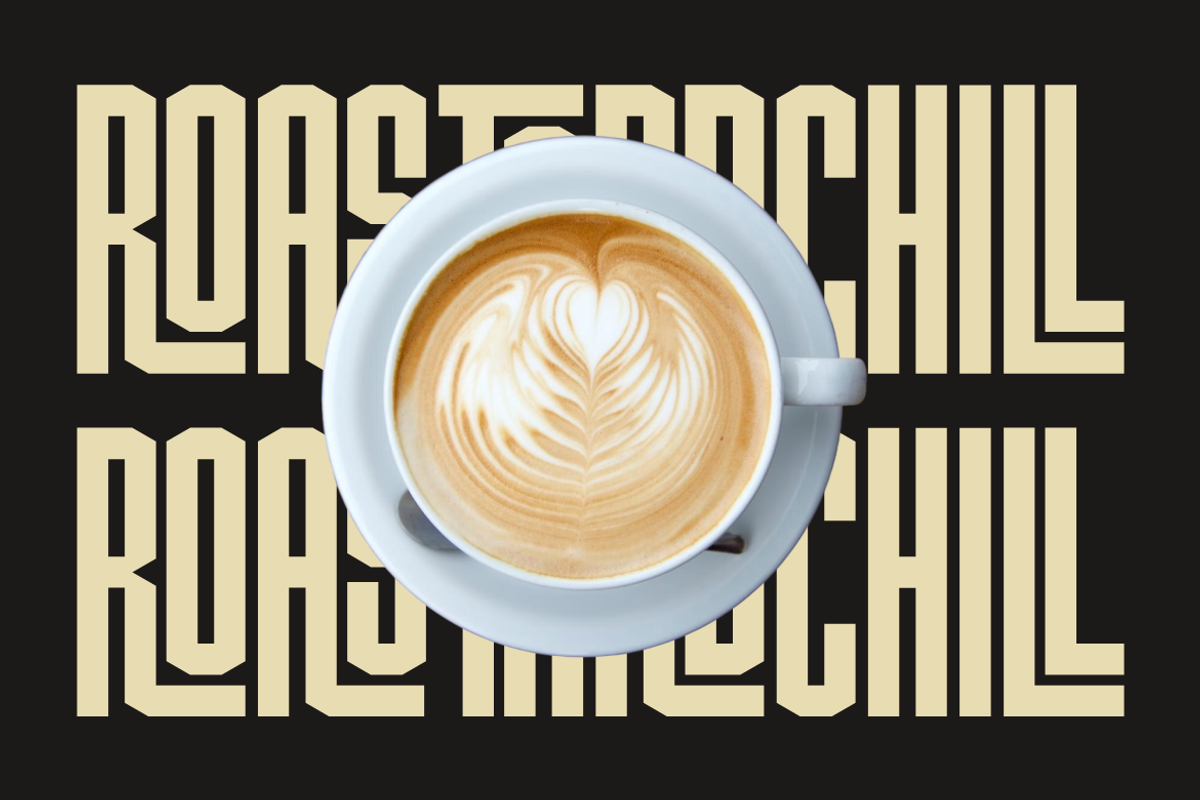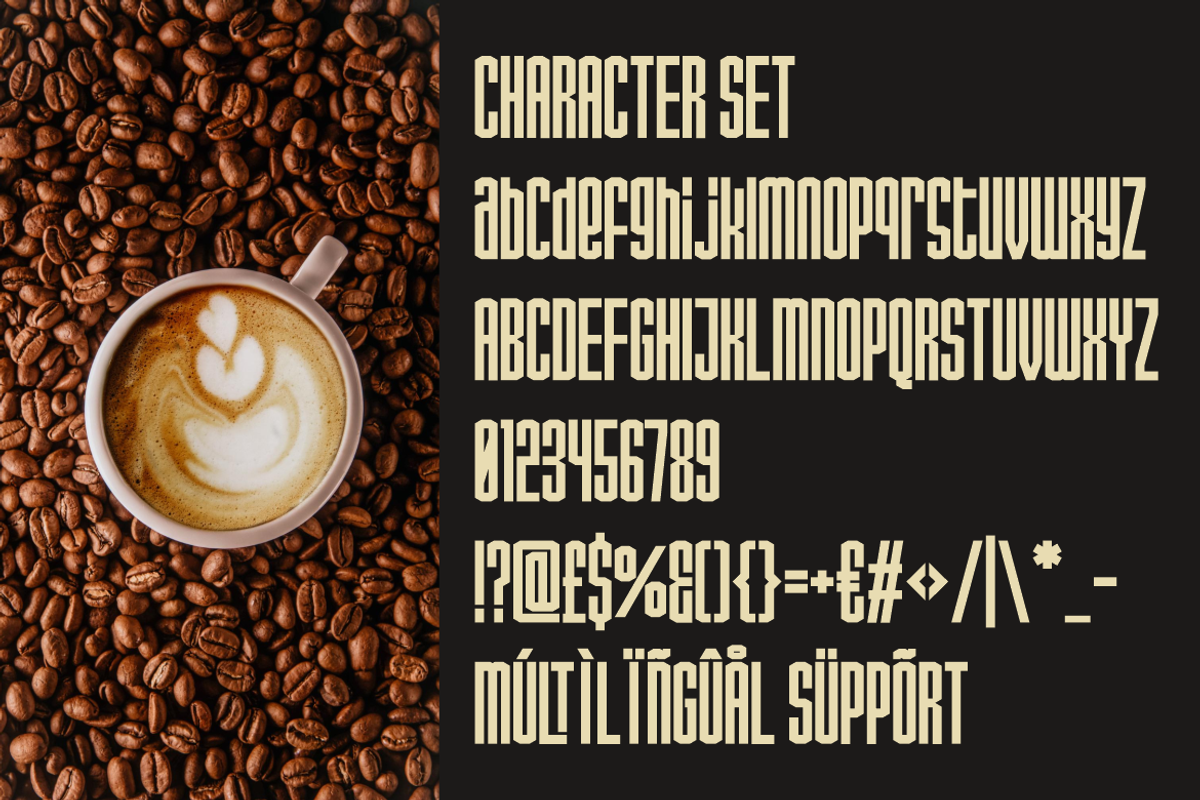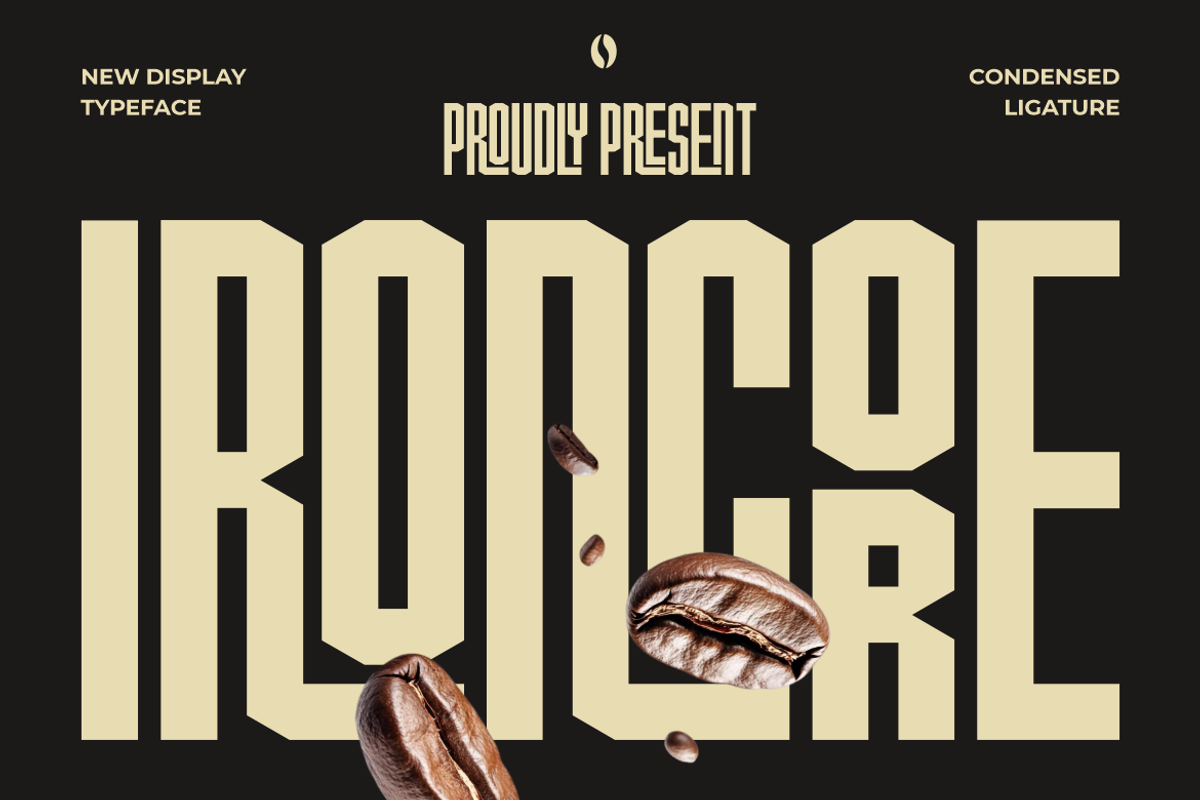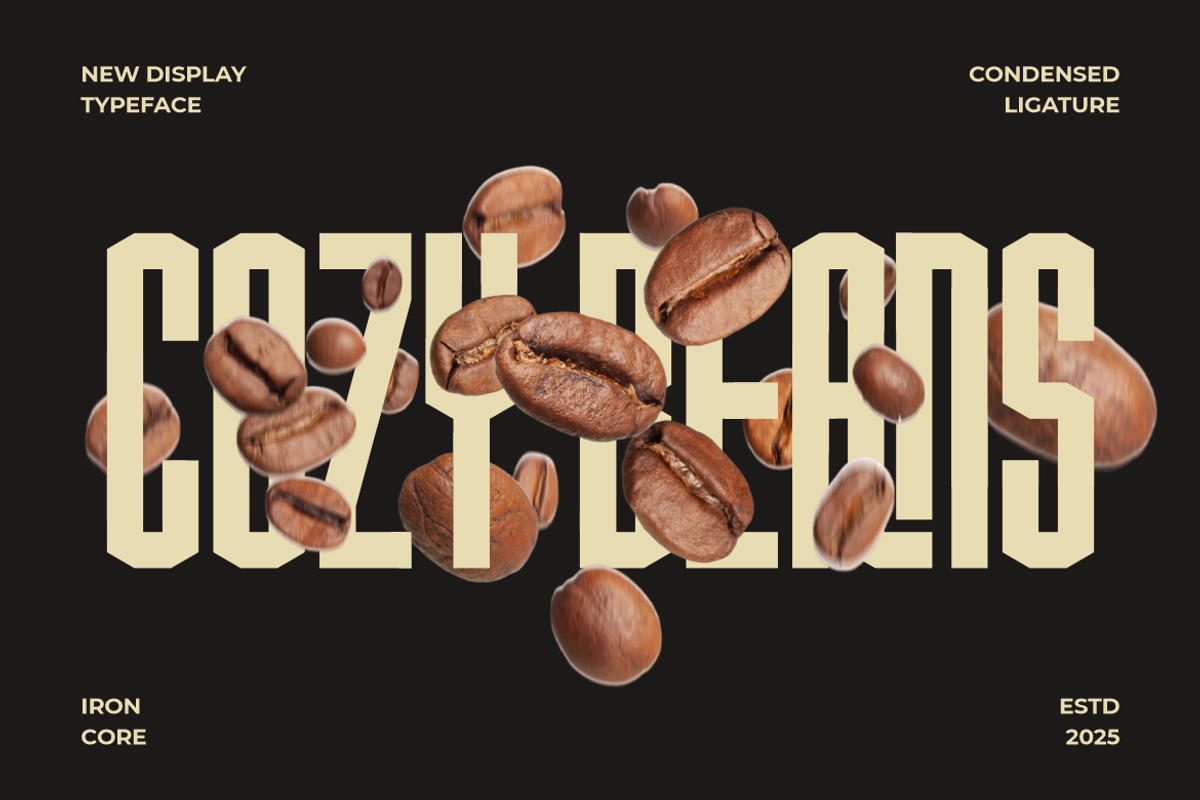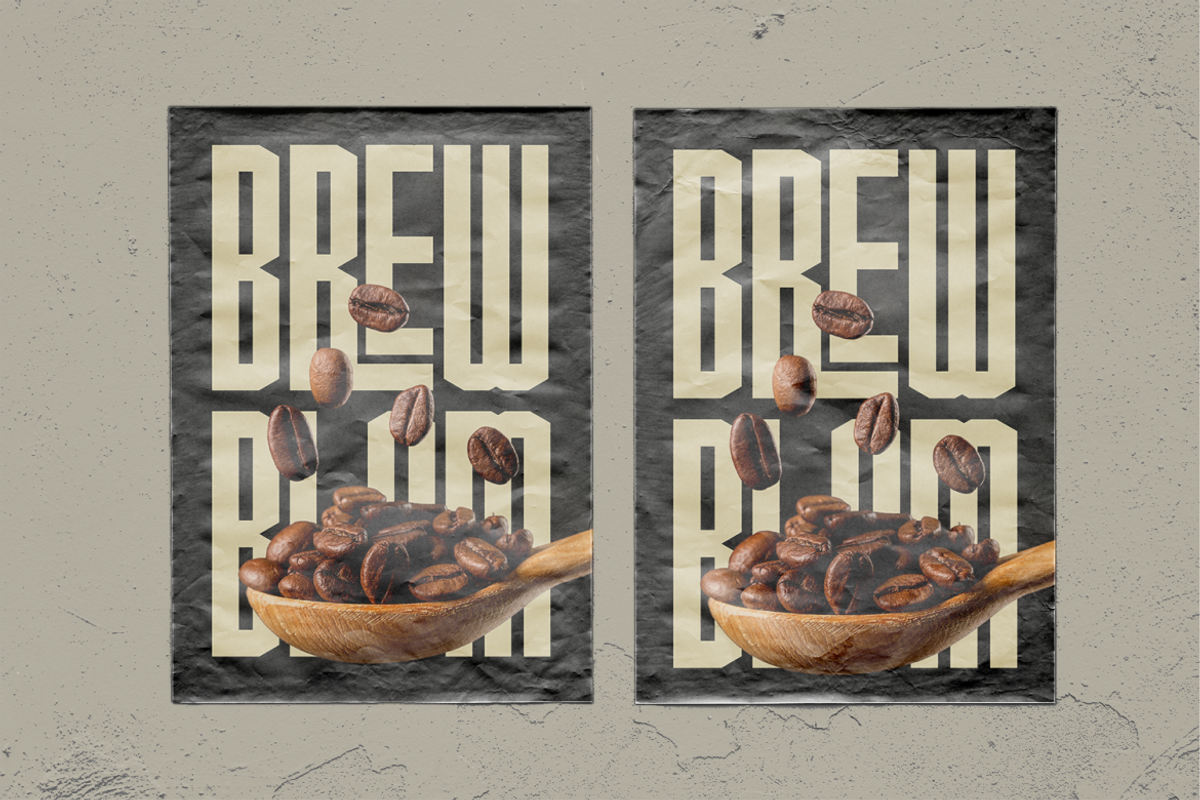
Ironcore Condensed Ligature Font
Ironcore Condensed Ligature Font delivers an industrial edge with a refined modern twist. This typeface features tall, compact letterforms with bold geometric precision, creating an assertive and confident visual statement. Each character is built with tight vertical proportions and minimal spacing, producing a condensed aesthetic that maximizes visual impact while conserving space. The sharp edges and squared corners emphasize strength and durability, while the clean alignment of ligatures adds sophistication and rhythm to the overall composition. Designed for visibility and bold presence, Ironcore Condensed Ligature Font merges modern urban style with classic industrial confidence.
Ideal for logos, coffee packaging, posters, and business branding, this font injects power into every visual layout. Its condensed style fits perfectly for editorial headlines, product labels, and cafe branding where space and impact matter most. The thick, upright form creates an unmistakable identity that grabs attention from afar. Ironcore Condensed Ligature Font stands as a statement of design authority—bold yet balanced, powerful yet refined. Whether you’re crafting a logo, building packaging, or creating advertisements, this font brings a professional modern toughness that enhances every project.